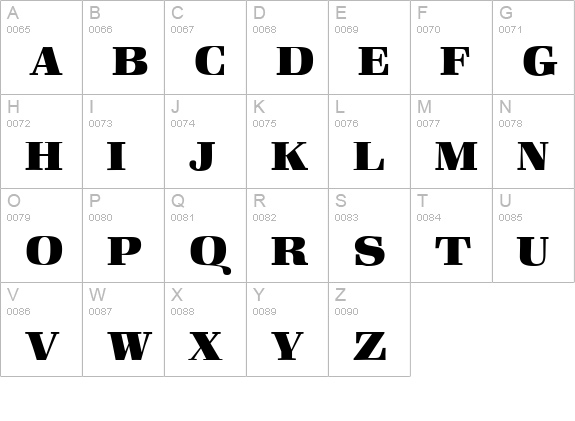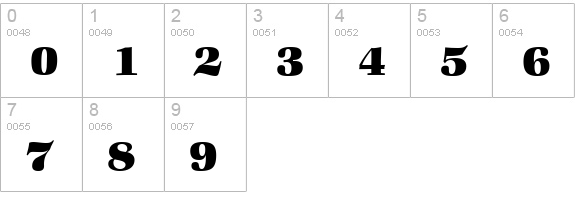
ZabriskieBook-Heavy-Regular is a heavy, high-impact variant in the ZabriskieBook typeface family \xE2\x80\x94 well suited to high-impact headlines, posters, and display advertising.
ZabriskieBook-Heavy-Regular is a striking and bold font that exudes elegance and sophistication. Its clean lines and strong presence make it perfect for a wide range of design projects, from editorial layouts to branding materials. The sleek and modern look of this font is sure to captivate any audience and leave a lasting impression. Best of all, ZabriskieBook-Heavy-Regular is available for free download at FontsMarket.com. This means you can easily access this high-quality font without any cost, making it a valuable addition to your design toolkit. Whether you're a seasoned designer or just starting out, ZabriskieBook-Heavy-Regular is a versatile and eye-catching font that will elevate your projects to the next level.